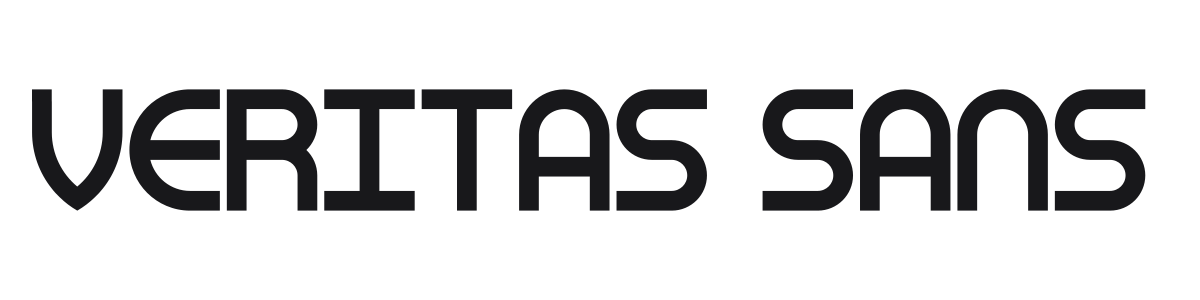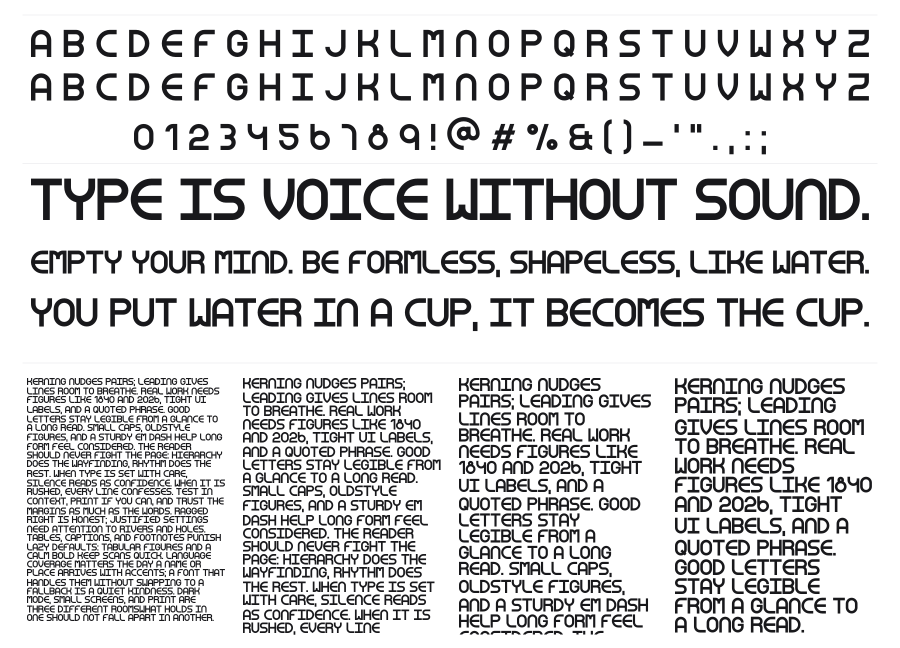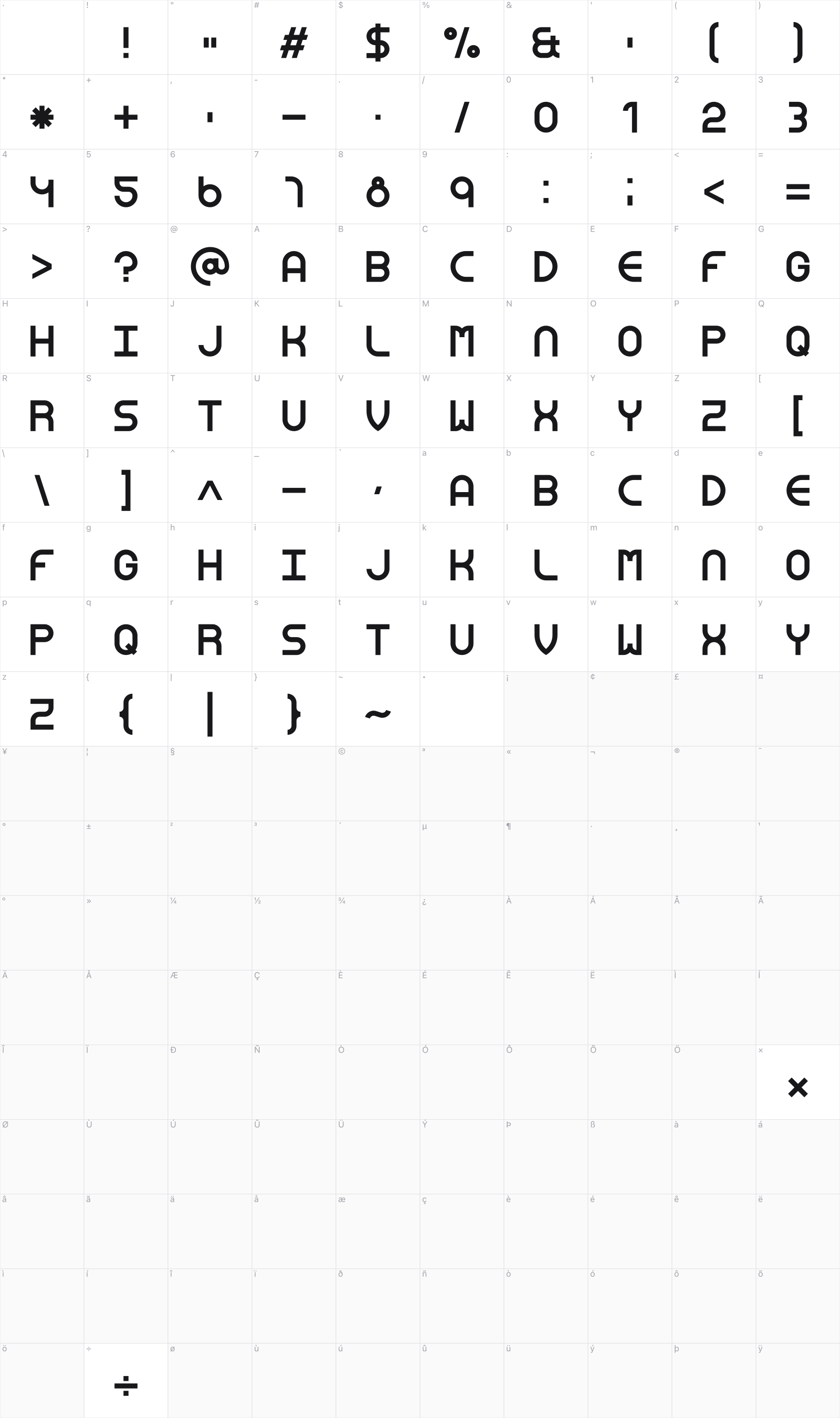
Veritas Sans
Veritas Sans is a bold geometric sans drawn with square proportions and subtly rounded interior corners inspired in part by Japanese typography. Those clipped corners are what set it apart from a plain grotesque, giving familiar shapes an unexpected softness. Works well at large sizes for branding, headlines, and anything that wants a modern edge without going cold.